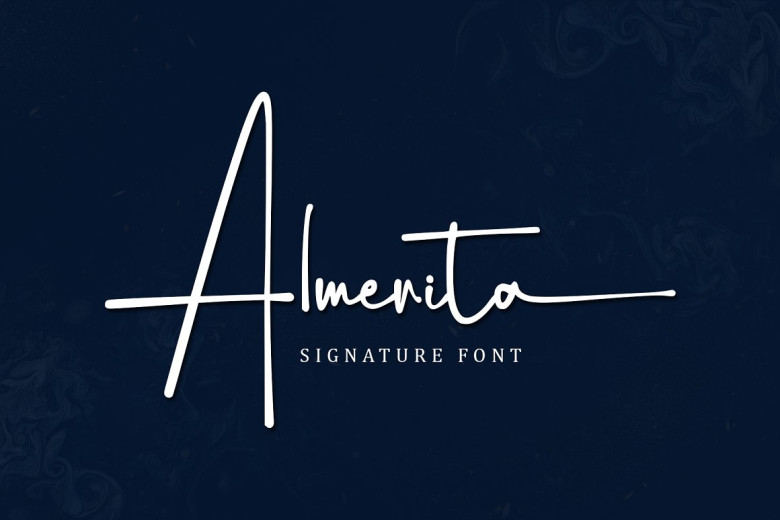
Almerita Font
Almerita is an elegant and charming written handwritten font, ideal for adding an elegant and personal touch to wedding invitations, greeting cards, or any other style that requires elegant script. Perfect for adding your personal touch!
Almerita Signature Font